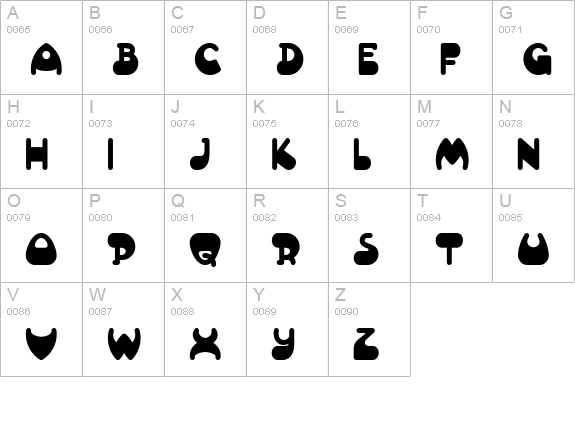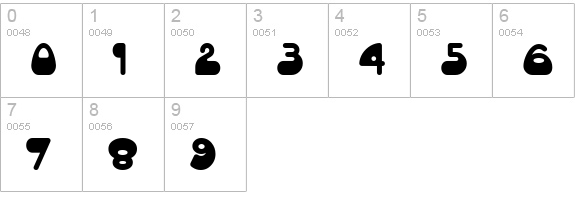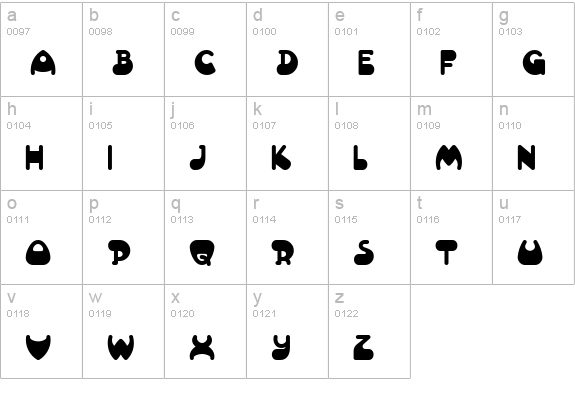
AltamonteNF Font Details
AltamonteNF is a stylish and elegant font that exudes sophistication and charm. Its sleek lines and classic design make it perfect for a wide range of projects, from branding to invitations to packaging. The font's versatility allows it to be used in both formal and informal settings, adding a touch of class to any design. What sets AltamonteNF apart is that it is not only visually striking but also free to download. That's right, this premium font can be yours at no cost! Simply visit FontsMarket.com to get your hands on this beautiful typeface and elevate your designs with its timeless appeal. Don't miss out on the opportunity to add AltamonteNF to your font collection today!